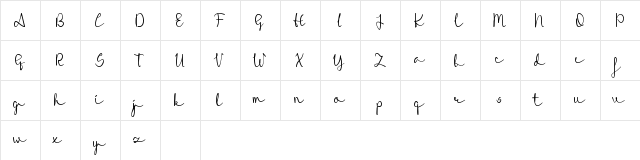
Thafamuthu Regular
Design Context for Thafamuthu Typeface
Thafamuthu is a composed and adaptable typeface that performs quietly and consistently across a wide range of design contexts.